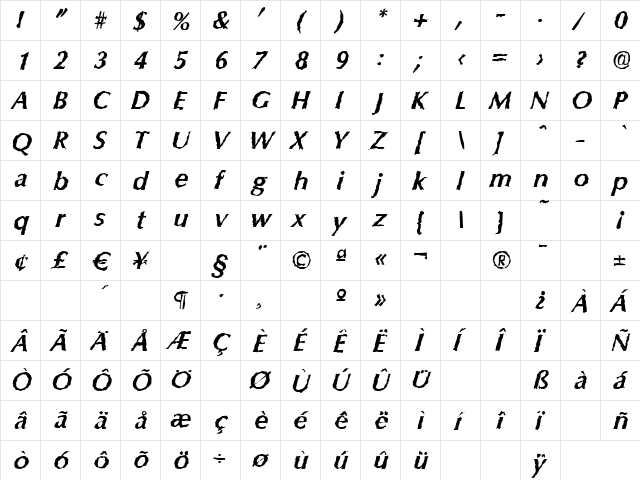
EricBeckerRandom BoldItalic Font Preview
Design Context for EricBeckerRandom Typeface
EricBeckerRandom is a composed and adaptable typeface that performs quietly and consistently across a wide range of design contexts. The dynamic lean of this cut emphasises speed and emphasis in any layout. The heavy weight commands attention and anchors typographic hierarchies.